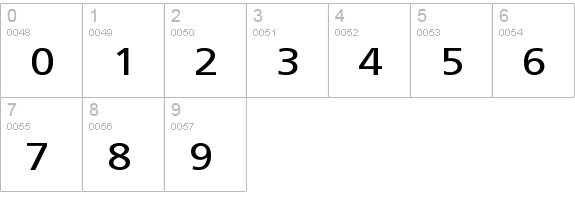
BudboyerExt-Nor Font Details
Introducing BudboyerExt-Nor font, a versatile and modern typeface that is perfect for a wide range of design projects. This unique font features a sleek and stylish design with clean lines and sharp edges, making it ideal for both digital and print applications. BudboyerExt-Nor font is the perfect choice for branding, logos, headlines, posters, and much more. Its bold and eye-catching appearance will help your designs stand out and make a lasting impression. The best part? BudboyerExt-Nor font is free to download at FontsMarket.com. This means you can easily access this stunning font and use it in your projects without any cost. Don't miss out on this amazing opportunity to enhance your designs with BudboyerExt-Nor font today!